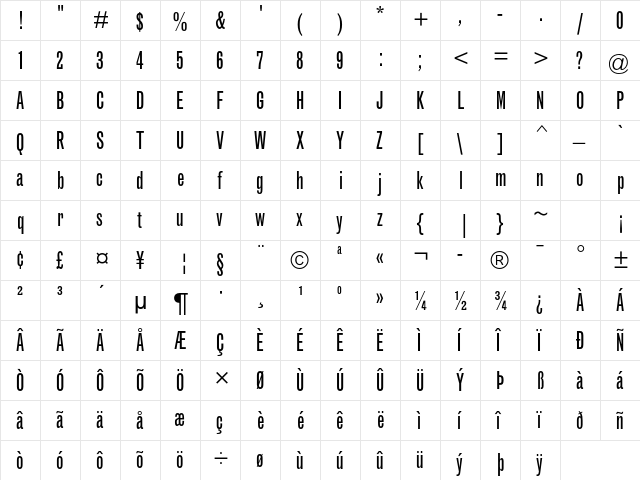
Grotesque MT Std Extra Condensed
Design Context for Grotesque MT Std Typeface
Grotesque MT Std offers clean, dependable letterforms without strong stylistic allegiance, making it a practical choice for designers who need flexibility. Its narrow stance lets it pack a punch even in space-constrained designs.